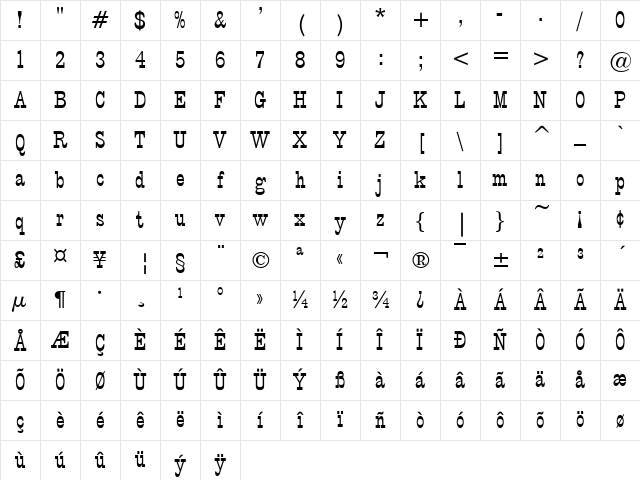
BigTop Regular
Complete BigTop Regular glyph index. Displaying only characters natively supported by BigTop Regular font.
Design Context for BigTop
BigTop is a composed and adaptable typeface that performs quietly and consistently across a wide range of design contexts.